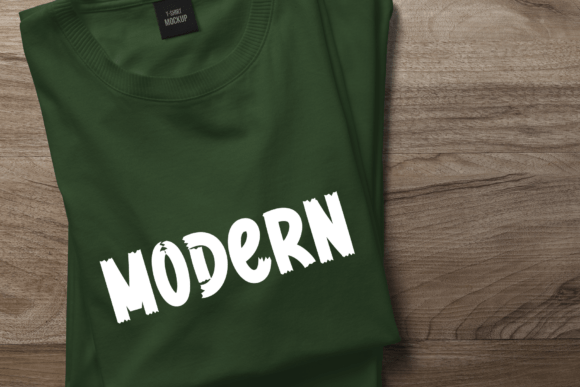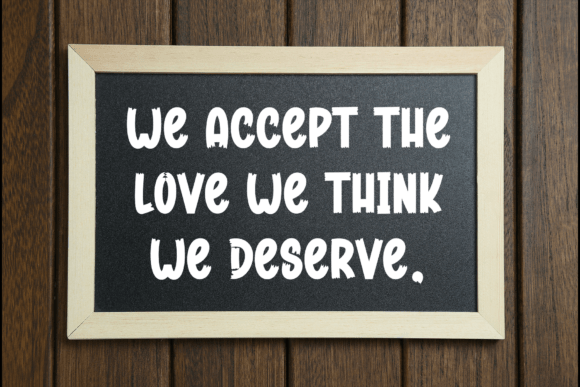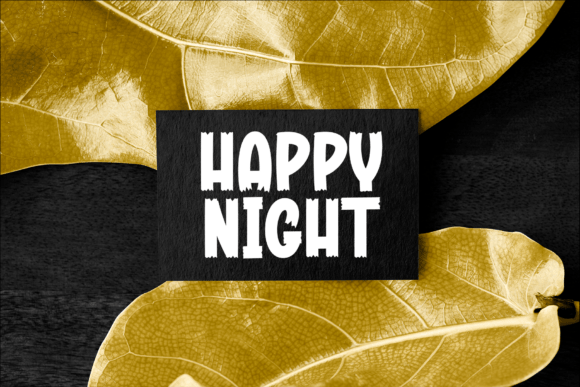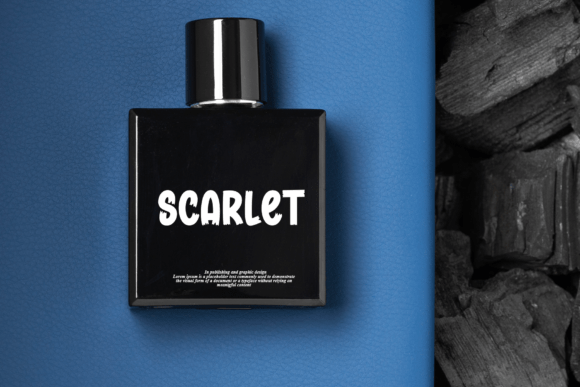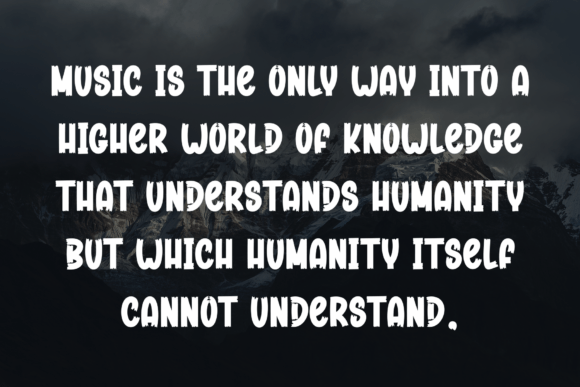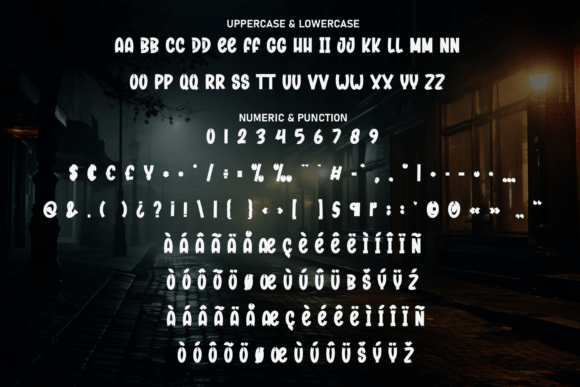
Introducing City Ghost Font: The Perfect Blend of Simplicity and Friendliness
In the world of typography, fonts play a crucial role in conveying the tone and personality of a brand or design. For designers and crafters looking for a font that combines simplicity with a friendly, approachable vibe, City Ghost Font is an excellent choice. This casual and neat display font is designed to capture the essence of modern handwritten typography with a polished finish, making it ideal for a wide range of design applications.
Clean Lines, Balanced Letterforms, and Subtle Rounded Edges
City Ghost Font boasts clean lines, balanced letterforms, and subtle rounded edges that give it a unique and charming character. The font’s design is carefully crafted to create a sense of warmth and approachability, making it perfect for branding, headlines, packaging, and digital content. The clean lines and balanced letterforms ensure that the font is highly legible, while the subtle rounded edges add a touch of softness and friendliness.
Modern Handwritten Typography with a Polished Finish
City Ghost Font is inspired by modern handwritten typography, but with a polished finish that sets it apart from more traditional handwritten fonts. The font’s design is characterized by a sense of fluidity and movement, giving it a dynamic and energetic feel. At the same time, the font’s polished finish ensures that it remains highly legible and professional, making it suitable for a wide range of design applications.
City Ghost Font is an excellent choice for designers and crafters looking for a font that can add a warm and inviting touch to their designs. The font’s versatility and legibility make it perfect for use in a variety of design applications, including:
- Branding: City Ghost Font is ideal for creating logos, business cards, and other branding materials that require a friendly and approachable tone.
- Headlines: The font’s clean lines and balanced letterforms make it perfect for creating headlines that are both attention-grabbing and easy to read.
- Packaging: City Ghost Font is a great choice for packaging design, adding a touch of warmth and personality to product labels and packaging materials.
- Digital Content: The font’s legibility and versatility make it perfect for use in digital content, including website headers, social media graphics, and email marketing materials.
What Sets City Ghost Font Apart
So, what sets City Ghost Font apart from other fonts on the market? Here are just a few key features that make it an excellent choice for designers and crafters:
- Unique blend of simplicity and friendliness: City Ghost Font combines the simplicity of modern typography with the friendliness of handwritten fonts, creating a unique and charming character.
- High legibility: The font’s clean lines, balanced letterforms, and subtle rounded edges ensure that it is highly legible, even at small sizes.
- Versatility: City Ghost Font is suitable for use in a wide range of design applications, from branding and headlines to packaging and digital content.
- Polished finish: The font’s polished finish gives it a professional and sophisticated feel, making it perfect for designers and crafters who want to create high-quality designs.
In conclusion, City Ghost Font is an excellent choice for designers and crafters looking for a font that combines simplicity with a friendly, approachable vibe. With its clean lines, balanced letterforms, and subtle rounded edges, this casual and neat display font is perfect for a wide range of design applications. Whether you’re creating branding materials, headlines, packaging, or digital content, City Ghost Font is sure to add a warm and inviting touch to your designs.